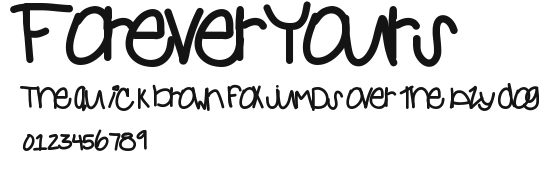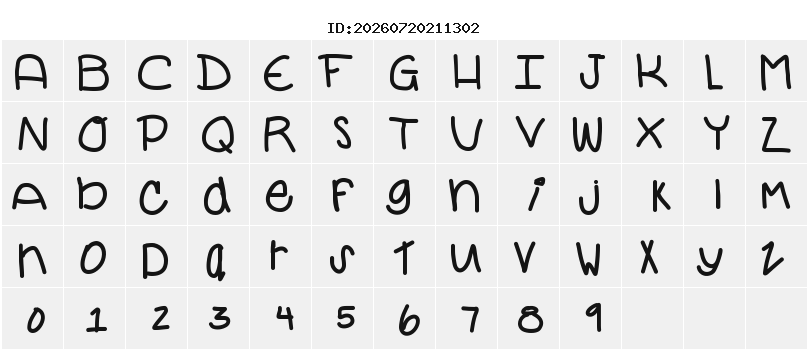
ForeverYours Preview
About ForeverYours.ttf
ForeverYours.ttf is a modern, elegant sans-serif font designed for ultimate readability and visual harmony. Perfect for branding, headlines, web design, and print materials.